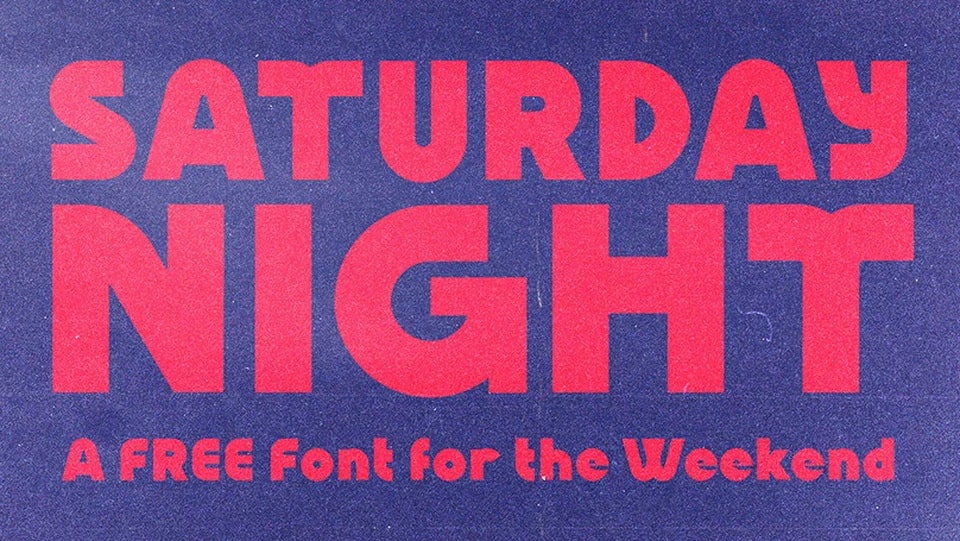
Download Saturday Night font, a bold geometric grotesque typeface designed for display use. With its impressive appearance Saturday Night font is perfect for making an impact in editorial and branding design.
Designer: Ross Shafer